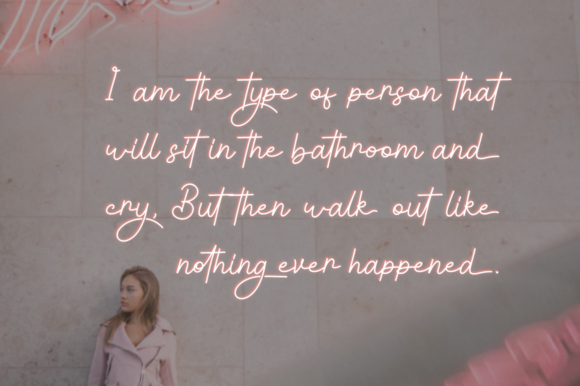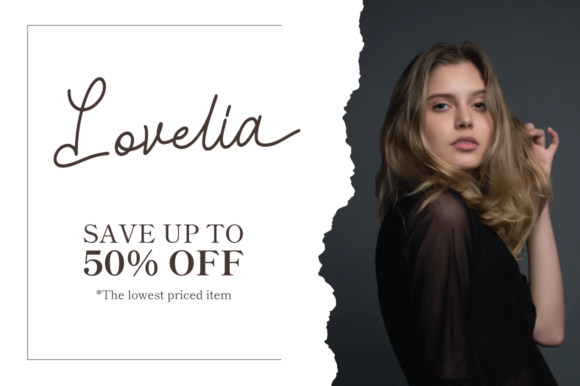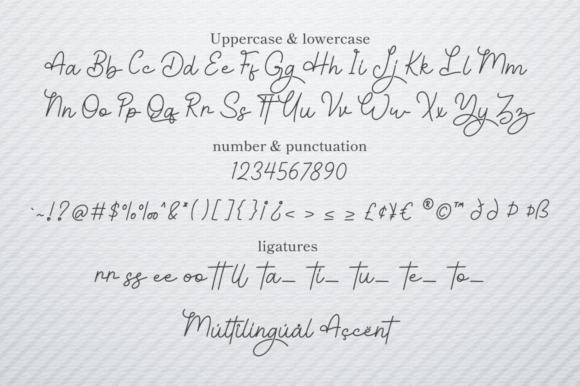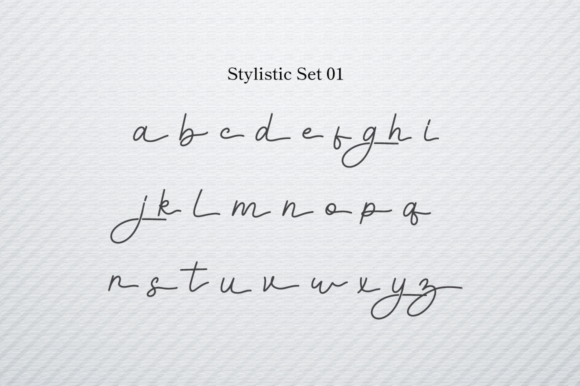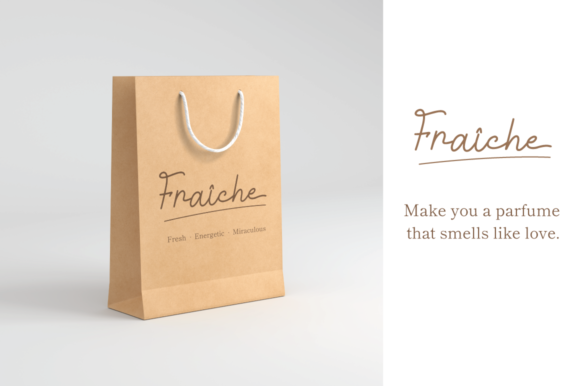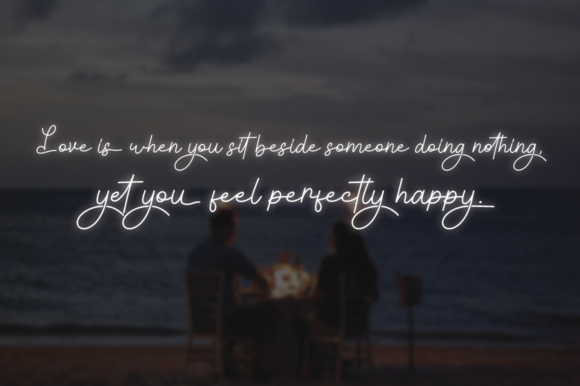
Introducing Diolitha Font: Elevate Your Designs with Elegance and Sophistication
In the world of typography, a font can make or break a design. For designers and crafters seeking to add a touch of class and modernity to their work, Diolitha Font is an exceptional choice. This beautiful and refined script font is designed to bring an air of elegance and sophistication to various design projects, including logos, branding, invitations, stationery, wedding designs, social media posts, and more.
What Makes Diolitha Font Stand Out?
Diolitha Font boasts a classy, elegant, and modern look that sets it apart from other script fonts. Its refined strokes and beautiful letterforms make it perfect for designs that require a high level of sophistication. Whether you’re working on a luxury brand’s logo, a wedding invitation, or a social media post, Diolitha Font is sure to impress.
Key Features of Diolitha Font
- Elegant and Refined Design: Diolitha Font features beautiful, flowing strokes that give it a sophisticated and classy look.
- Versatile: This font can be used for a wide range of design projects, from logos and branding to invitations, stationery, and social media posts.
- Modern Aesthetic: Diolitha Font has a modern look that will make your designs stand out in a crowded digital landscape.
- Easy to Read: Despite its elegant design, Diolitha Font remains highly legible, making it perfect for both digital and print designs.
Use Cases for Diolitha Font
Diolitha Font’s versatility makes it suitable for a variety of design projects. Here are some of the most popular use cases:
- Logos and Branding: Create a lasting impression with a logo that exudes elegance and sophistication.
- Invitations and Stationery: Add a touch of class to your invitations, business cards, and letterheads.
- Wedding Designs: Make your wedding designs, such as invitations, programs, and place cards, truly unforgettable.
- Social Media Posts: Elevate your social media presence with stylish and engaging posts.
Tips for Using Diolitha Font Effectively
To get the most out of Diolitha Font, consider the following tips:
- Pair with Complementary Fonts: Combine Diolitha Font with sans-serif fonts for a balanced look.
- Adjust Font Sizes: Experiment with different font sizes to create visual hierarchy and emphasis.
- Play with Colors: Take advantage of Diolitha Font’s elegance by using it with a range of colors and gradients.
Diolitha Font is a beautiful and refined script font that can elevate your designs to new heights. Its elegant and modern look makes it perfect for a wide range of projects, from logos and branding to invitations and social media posts. With its versatility, legibility, and sophisticated design, Diolitha Font is an excellent choice for designers and crafters seeking to add a touch of class to their work.